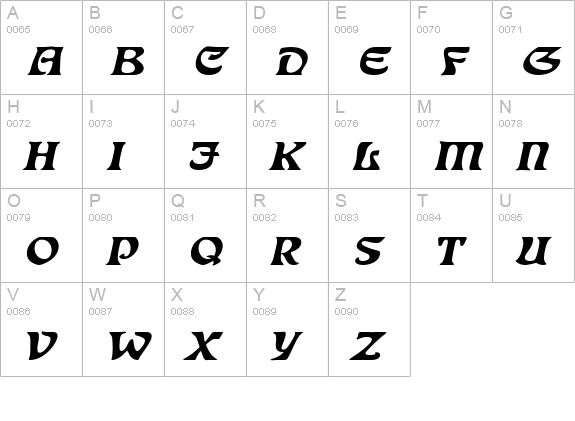
Freedom Extended Italic is a distinctive, extended-width, italic variant in the Freedom typeface family \xE2\x80\x94 well suited to design and typography projects.
Freedom Extended Italic font is a dynamic and modern typeface that exudes a sense of freedom and creativity. Its elegant italic style adds a touch of sophistication to any design project, making it perfect for headlines, branding, and editorial work. The sleek lines and unique letterforms of this font give it a distinctive and contemporary look that is sure to capture attention. What sets Freedom Extended Italic font apart is its versatility and readability, making it suitable for a wide range of applications. Whether you're designing a website, creating a poster, or working on a magazine layout, this font will bring a sense of style and flair to your project. Best of all, Freedom Extended Italic font is freely available to download at FontsMarket.com, allowing you to access this high-quality typeface at no cost. Don't miss out on the opportunity to enhance your designs with the beauty and elegance of Freedom Extended Italic font. Download it today and set your creativity free!